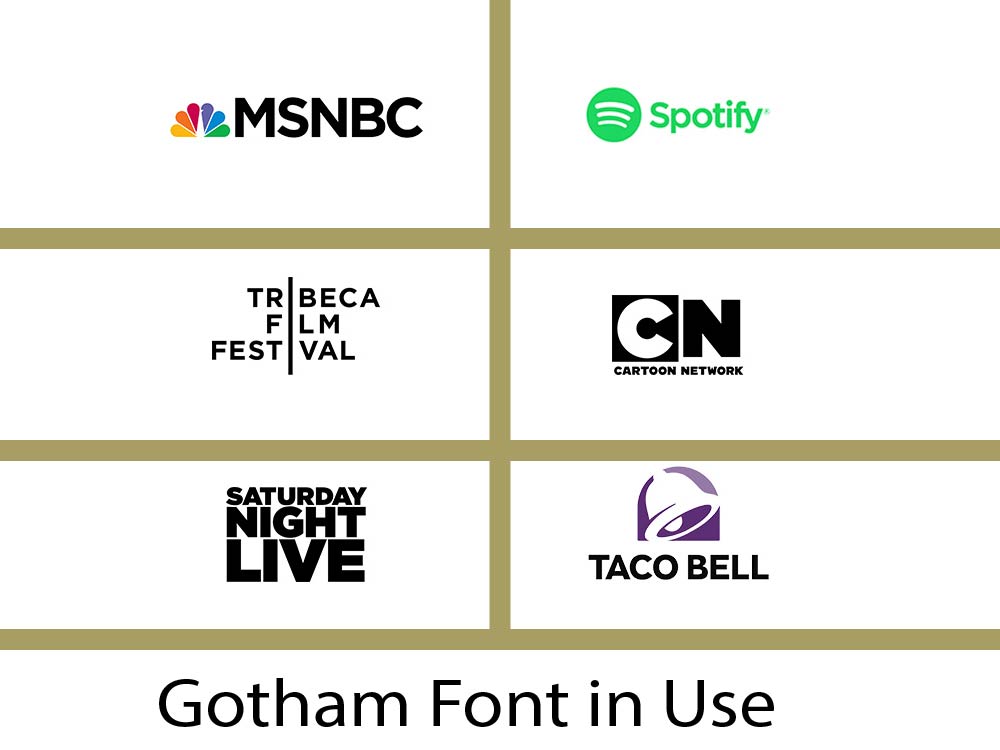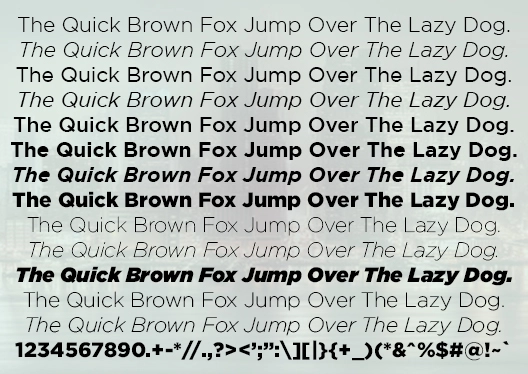
Only a few handful people aren’t aware of what is Gotham and how popular it is. Gotham font is a geometric sans-serif typeface that has become one of the most widely used and recognized fonts of the 21st century. The font was designed by Tobias Frere-Jones and was initially commissioned by GQ magazine in 2000. The inspiration for Gotham came from the lettering found on buildings and signs in New York City, particularly the Port Authority Bus Terminal.
Gotham’s ability to work well in both small and large sizes is one of its key advantages. The font’s geometric structure and lack of unnecessary lines make it highly legible, even in small sizes. This makes it an ideal font for use in digital media, such as websites and mobile apps. The high x-height and wide apertures also make it easy to read at larger sizes, making it a great choice for headlines and display text.
The Gotham font family includes 66 styles, supports 60 languages, and comes in various weights and widths. The weights available include Gotham thin, extra light, light, book, medium, bold, black, and ultra. The widths available include narrow, extra-narrow, and condensed. Gotham has an extensive library of styles making it a highly versatile font that can be used for a wide range of design projects.
Gotham is a highly versatile and legible geometric sans-serif typeface that has been widely used in various contexts, such as branding, editorial design, posters, and political campaigns.
Gotham has been used in rebranding efforts by companies such as Cartoon Network, Twitter, Tom Ford, and Chanel. In addition, in the 2008 Obama Presidential Campaign, they used Gotham font, which also can be seen on the One World Trade Center tower. The font family includes 66 styles, supports 60 languages, and comes in various weights and widths. This extensive library of styles makes Gotham a highly versatile font that can be used for a wide range of design projects. Whether it’s a simple brochure or a large billboard, Gotham can be used effectively to make the message clear and memorable.
Ans: Gotham was designed by Tobias Frere-Jones.
Ans: The inspiration for Gotham came from the lettering found on buildings and signs in New York City, particularly the Port Authority Bus Terminal.
Ans: One of the key advantages of Gotham is its ability to work well in both small and large sizes, making it highly legible and easy to read. Its geometric structure and lack of unnecessary lines also make it versatile for a wide range of design projects.
Ans: The Gotham font family includes 66 styles, supports 60 languages, and comes in various weights and widths.